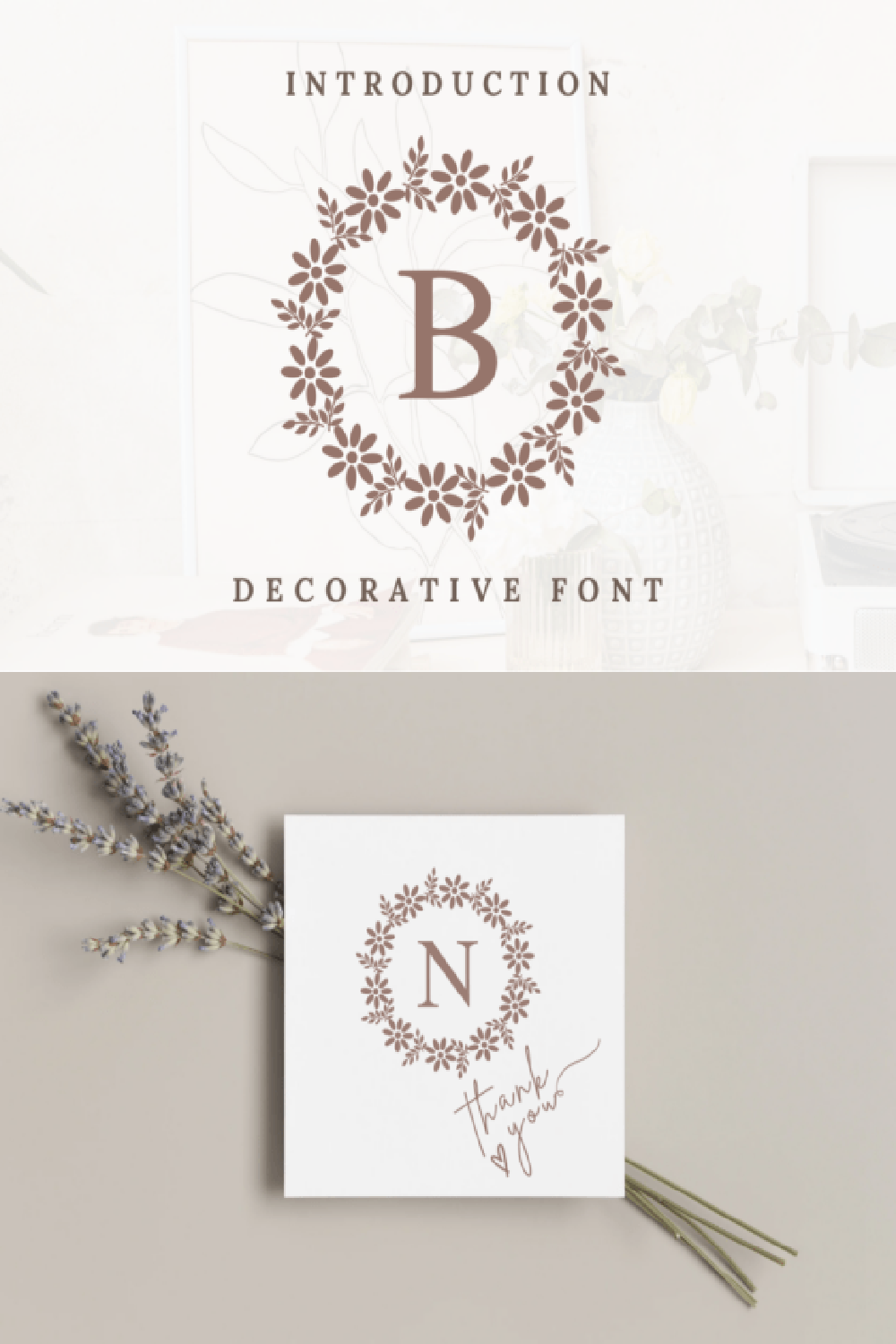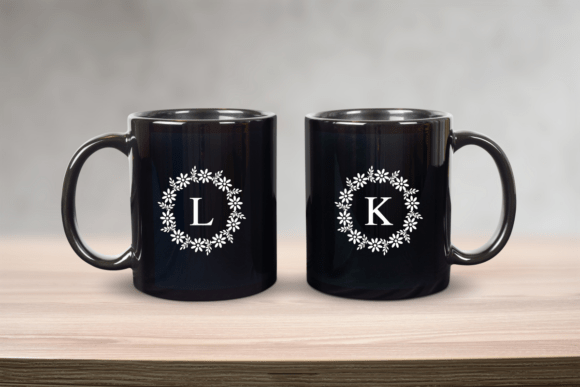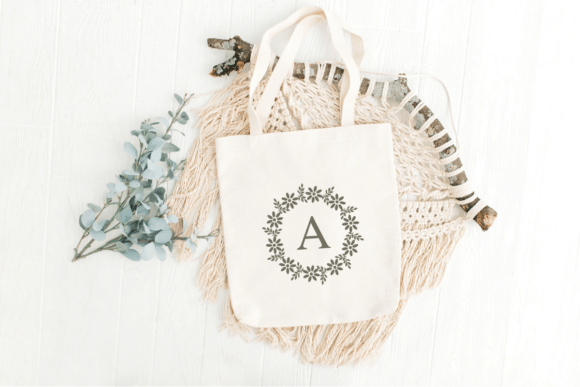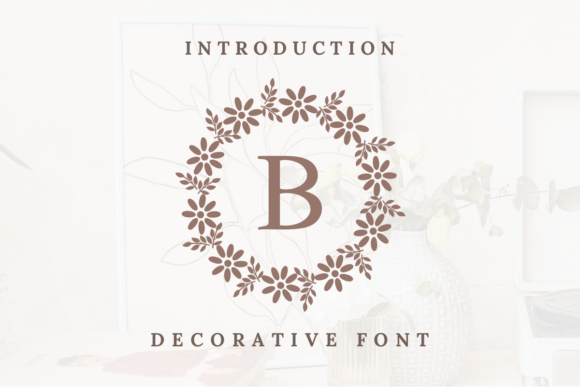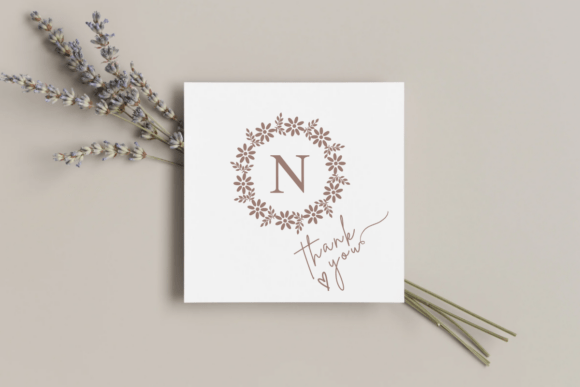
About the Beautiful Flower Monogram Font
We are excited to introduce Beautiful Flower Monogram Font, a must-have typeface for any serious designer. Beautiful Flower Monogram is a gorgeous decorative font. You can use it for taking notes, writing a diary, or making greeting cards. However, you can still use it for other designs, such as banners, content, mugs, cards, shirts, stationery, social media posts, and more!